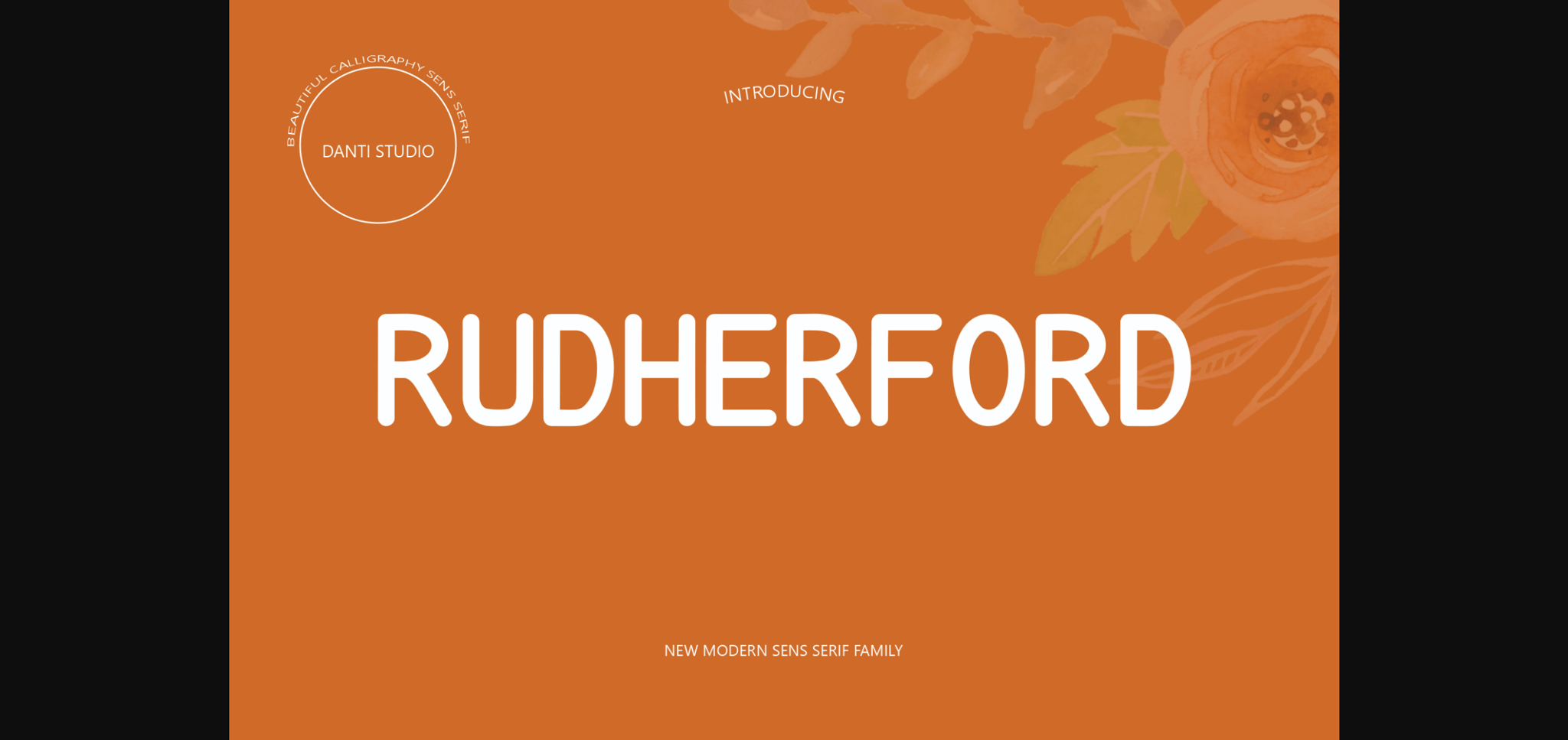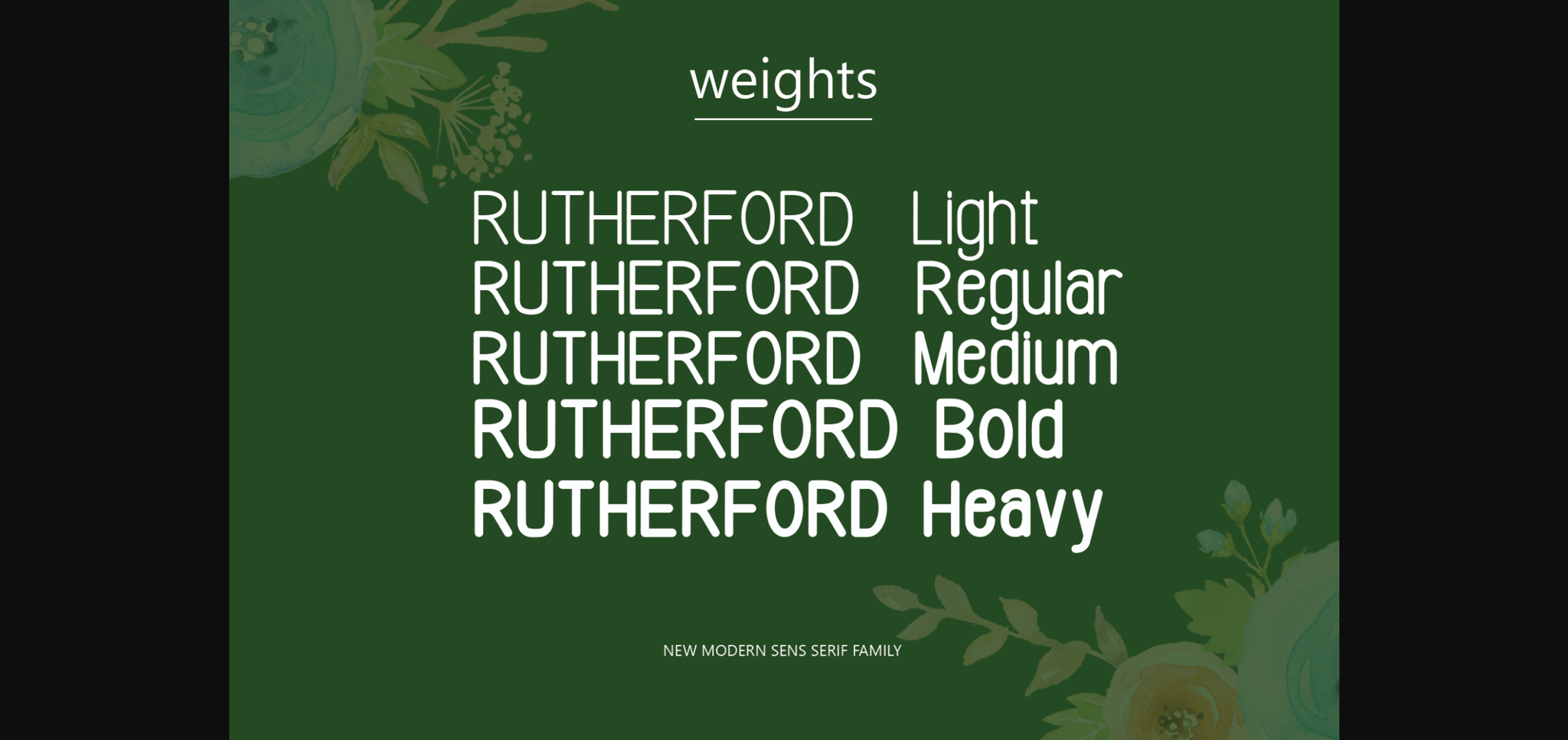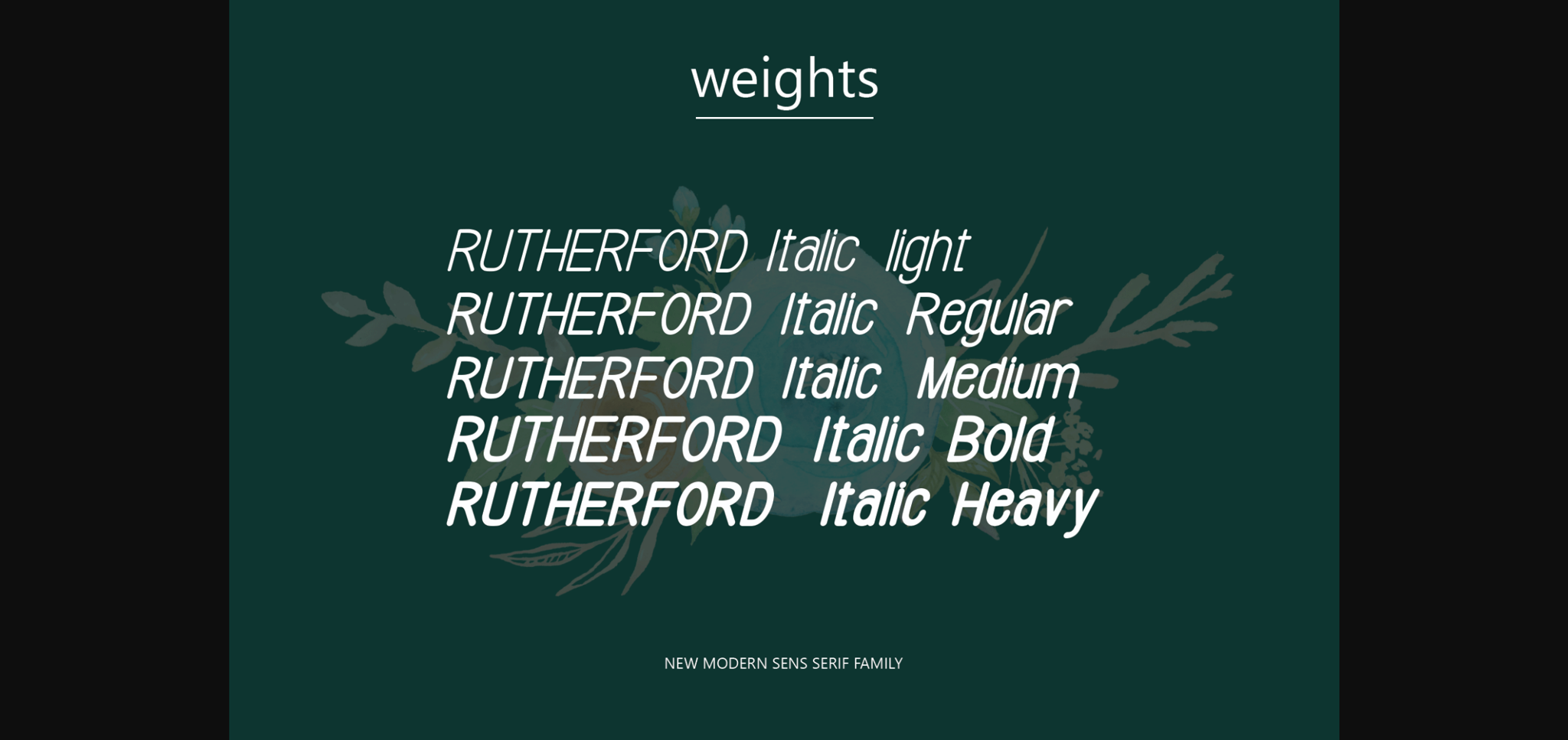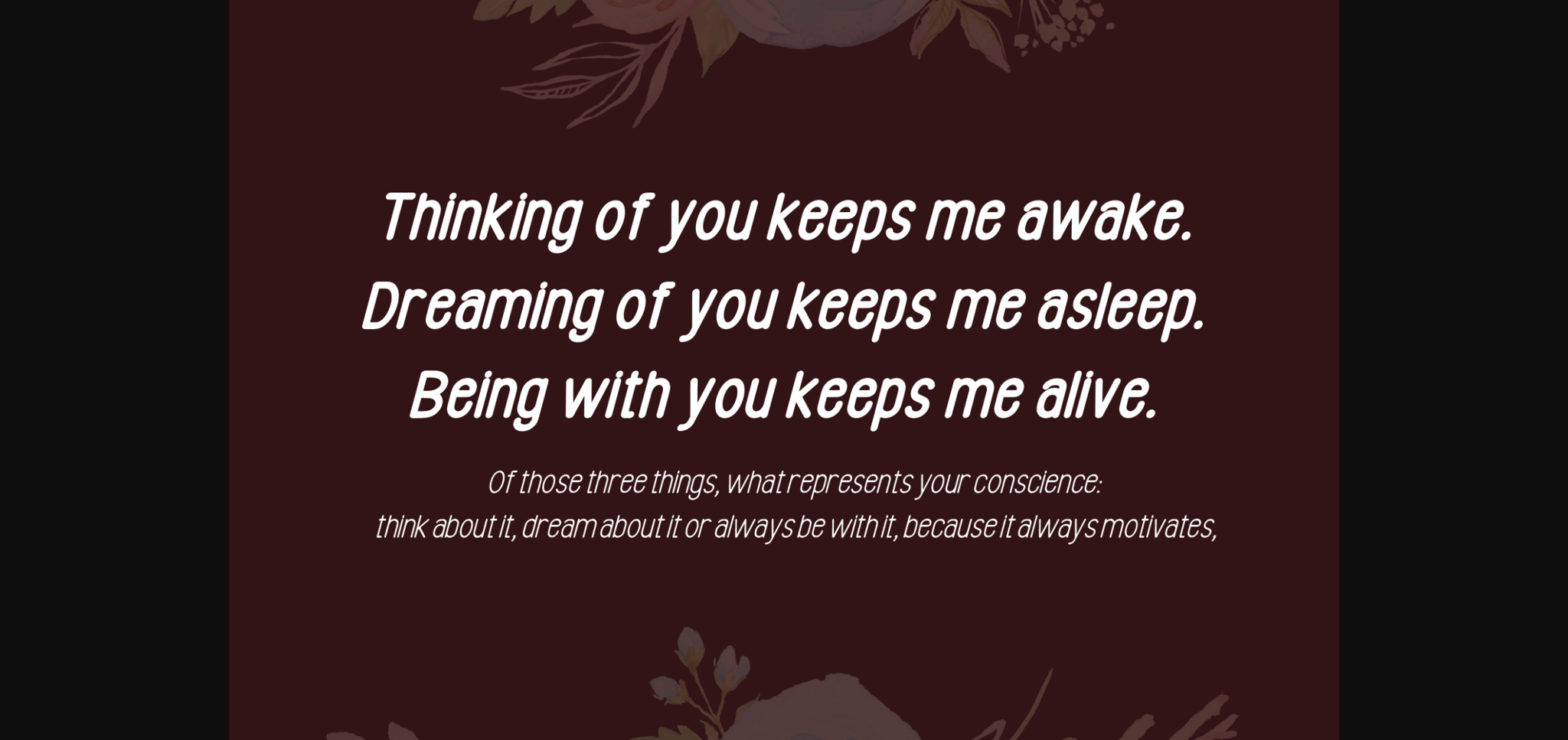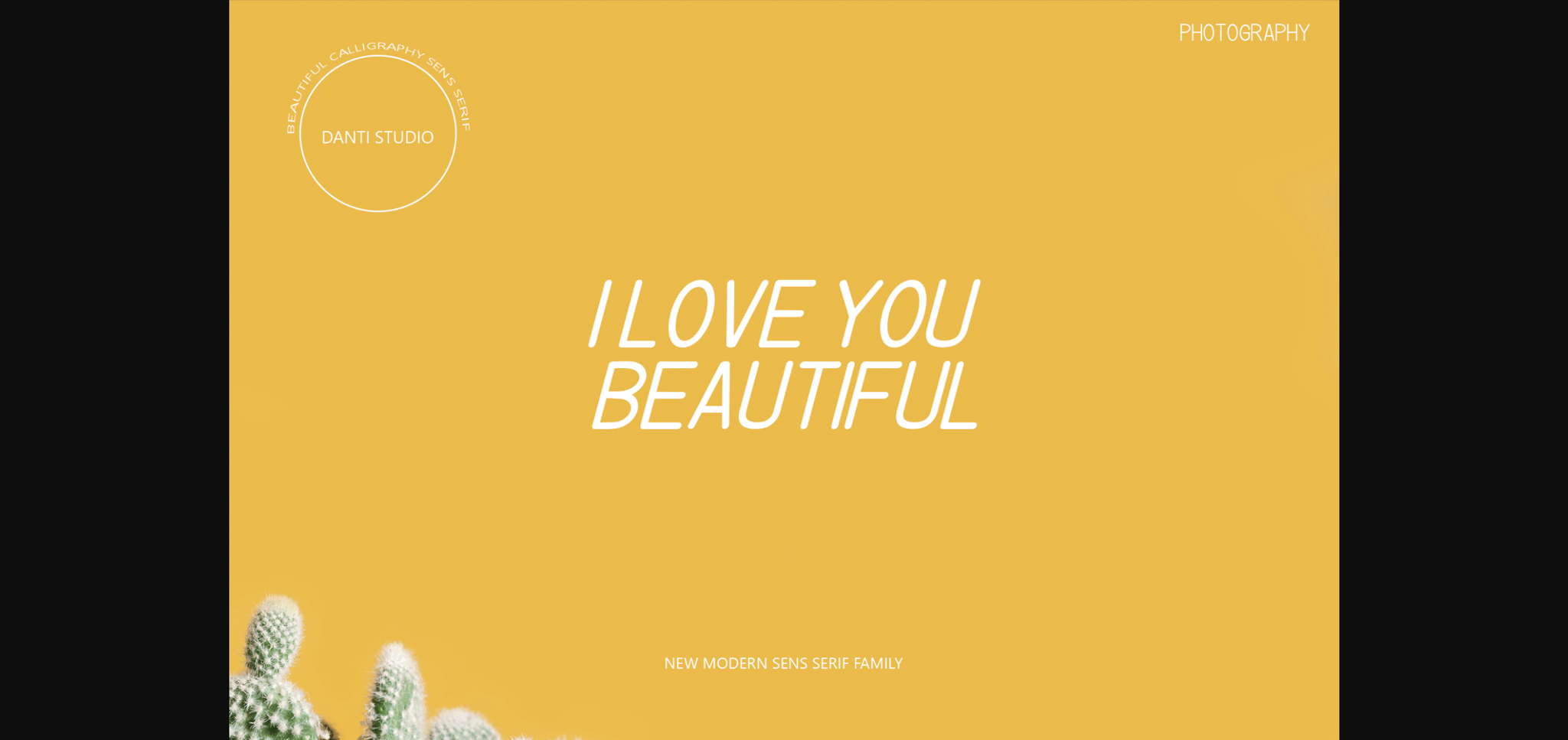
Rutherford Font
About Rutherford Font
Rutherford is a distinct and elegant sans serif family that blends traditional influences into a contemporary aesthetic. Its well balanced Latin details contain distinctive contrasts. Use Rutherford to achieve an exquisite, yet subtle look and maximum versatility.